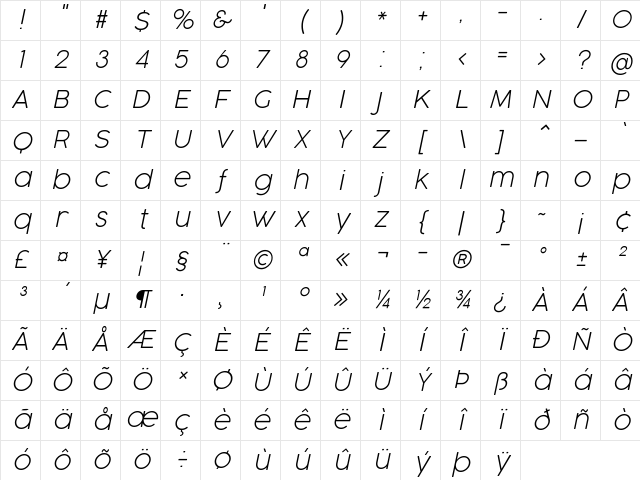
Complete Cocogoose Pro UltraLight Italic glyph index. Displaying only characters natively supported by Cocogoose Pro UltraLight Italic font.
Cocogoose Pro UltraLight is a composed and adaptable typeface that performs quietly and consistently across a wide range of design contexts. The slanted form adds forward momentum and visual energy. Its slender proportions lend an understated elegance to any composition.
Pro Tip: Use Cocogoose Pro UltraLight for emphasis, pull quotes, and subheadings where its slanted energy can add rhythm to the layout.